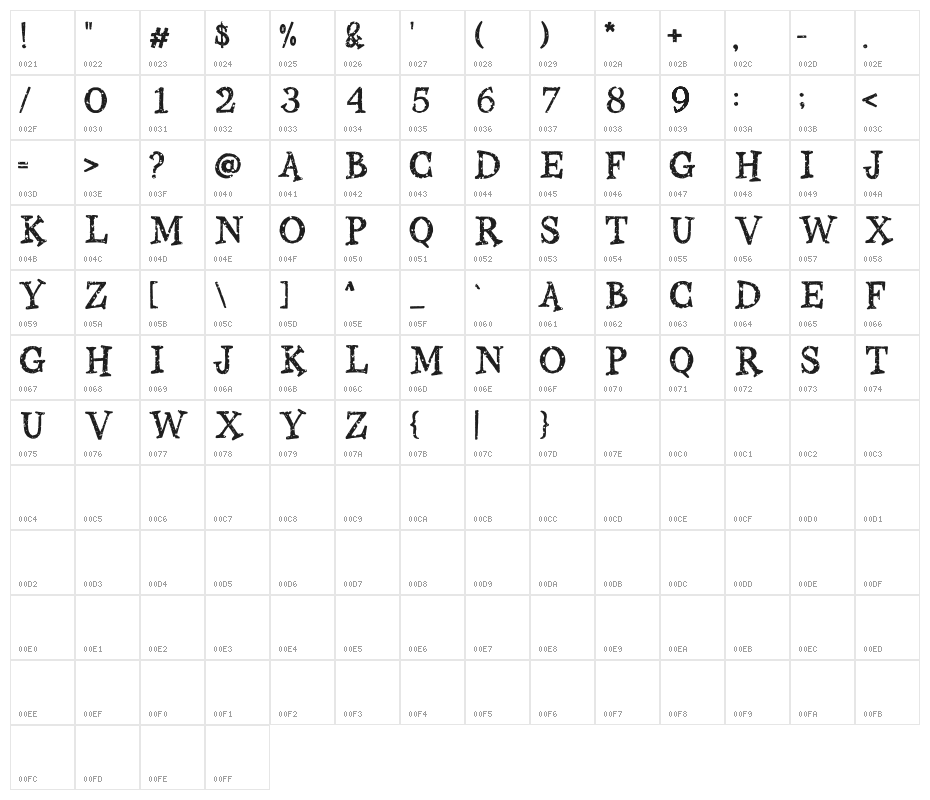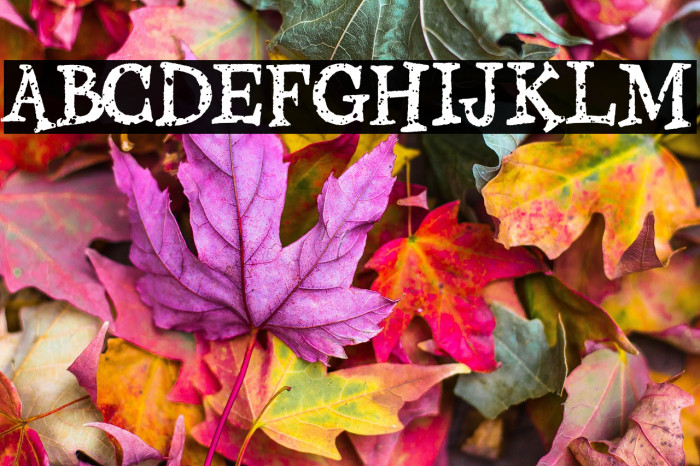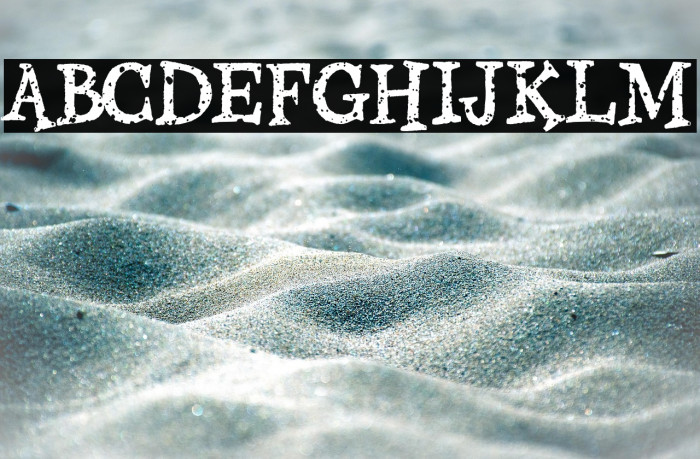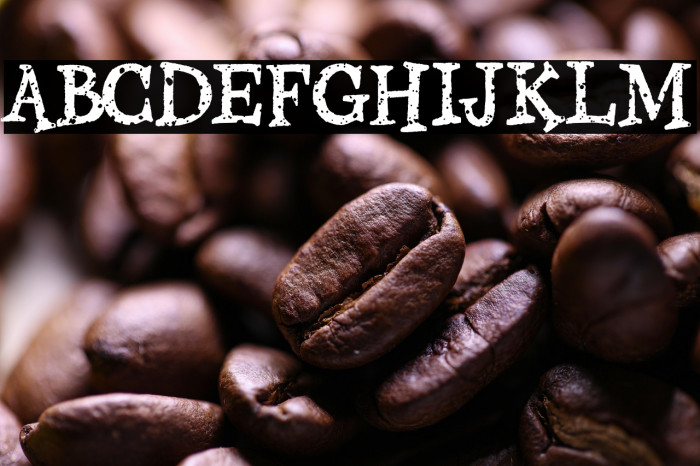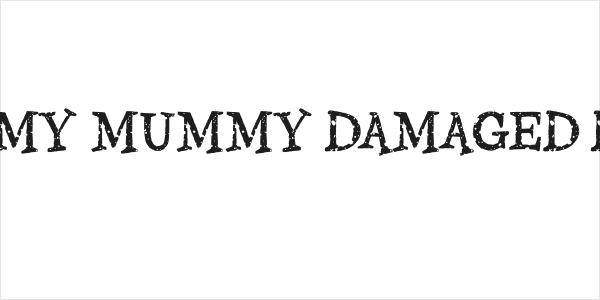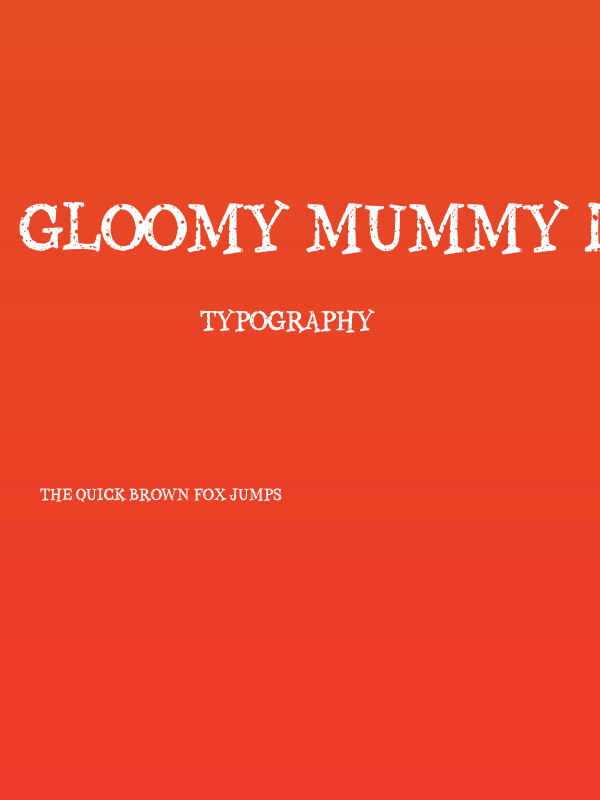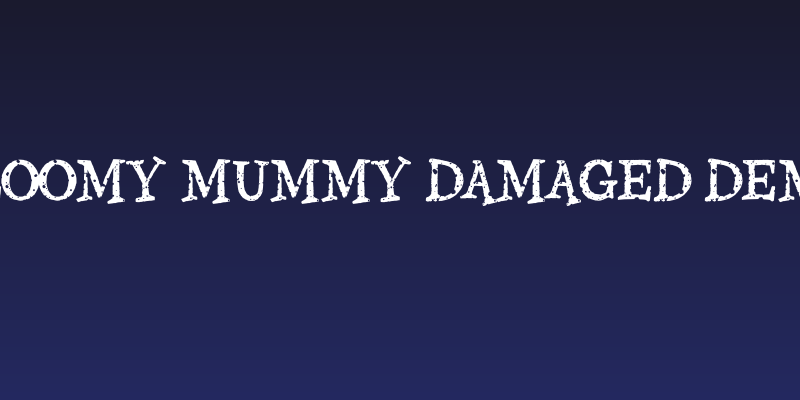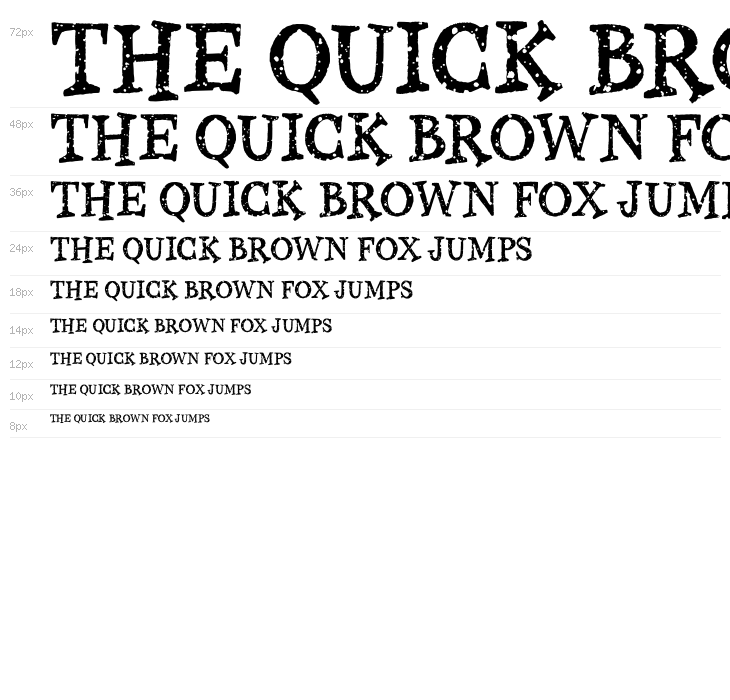
Gloomy Mummy Damaged Demo Font
Gloomy Mummy Damaged Demo Description
This font exhibits a distressed and textured appearance, reminiscent of aged or weathered surfaces. The characters are bold and have a rough, uneven texture that gives them a unique, grunge-like aesthetic. The uppercase and lowercase letters maintain a consistent style, with jagged edges and irregularities that add to the font's rugged charm. The numbers and special characters follow the same design principles, ensuring a cohesive look across all glyphs. This font is ideal for projects that aim to convey a sense of antiquity, mystery, or edginess, making it suitable for horror-themed designs, vintage posters, or artistic projects that require a bold statement.
| Proposed Projects | Horror-themed designs, vintage posters, artistic projects, album covers, and event flyers. |